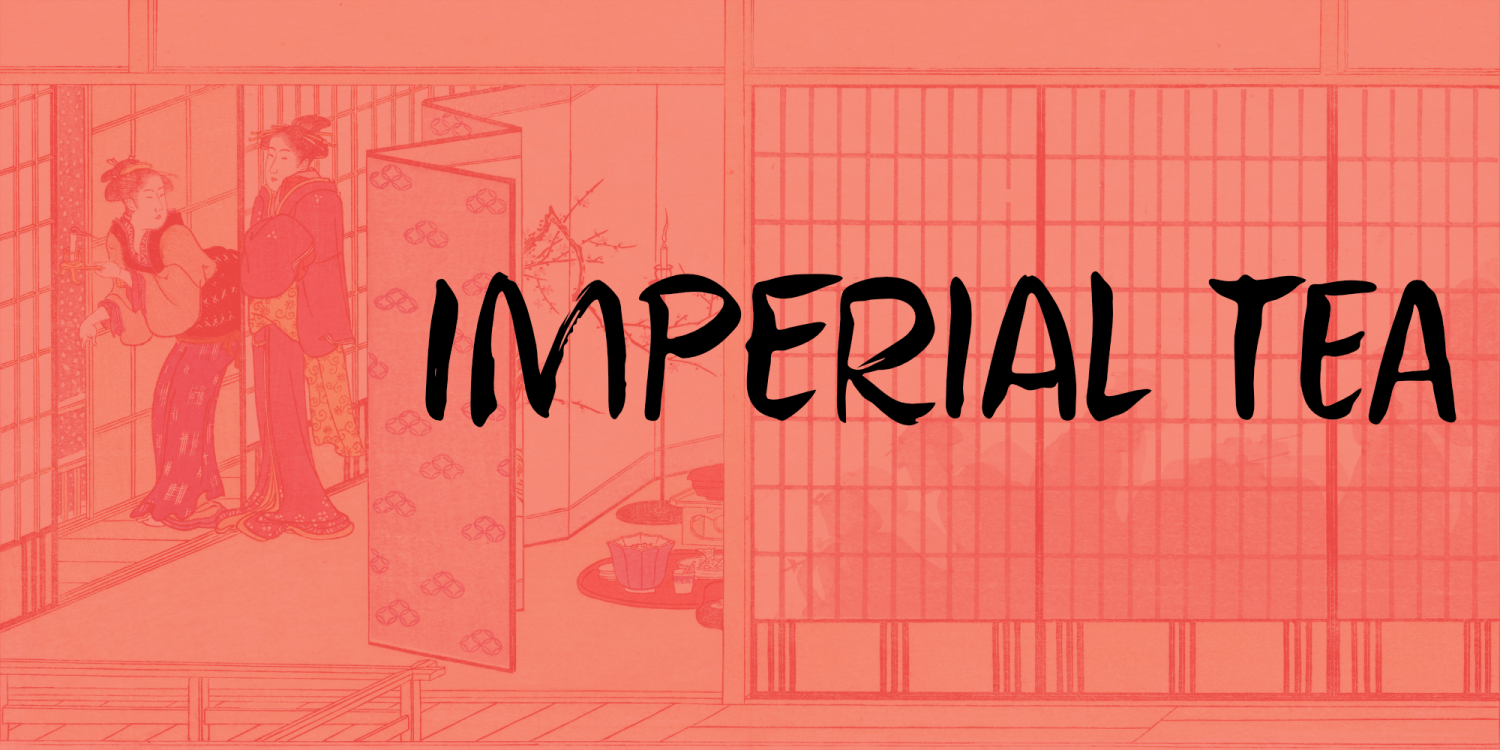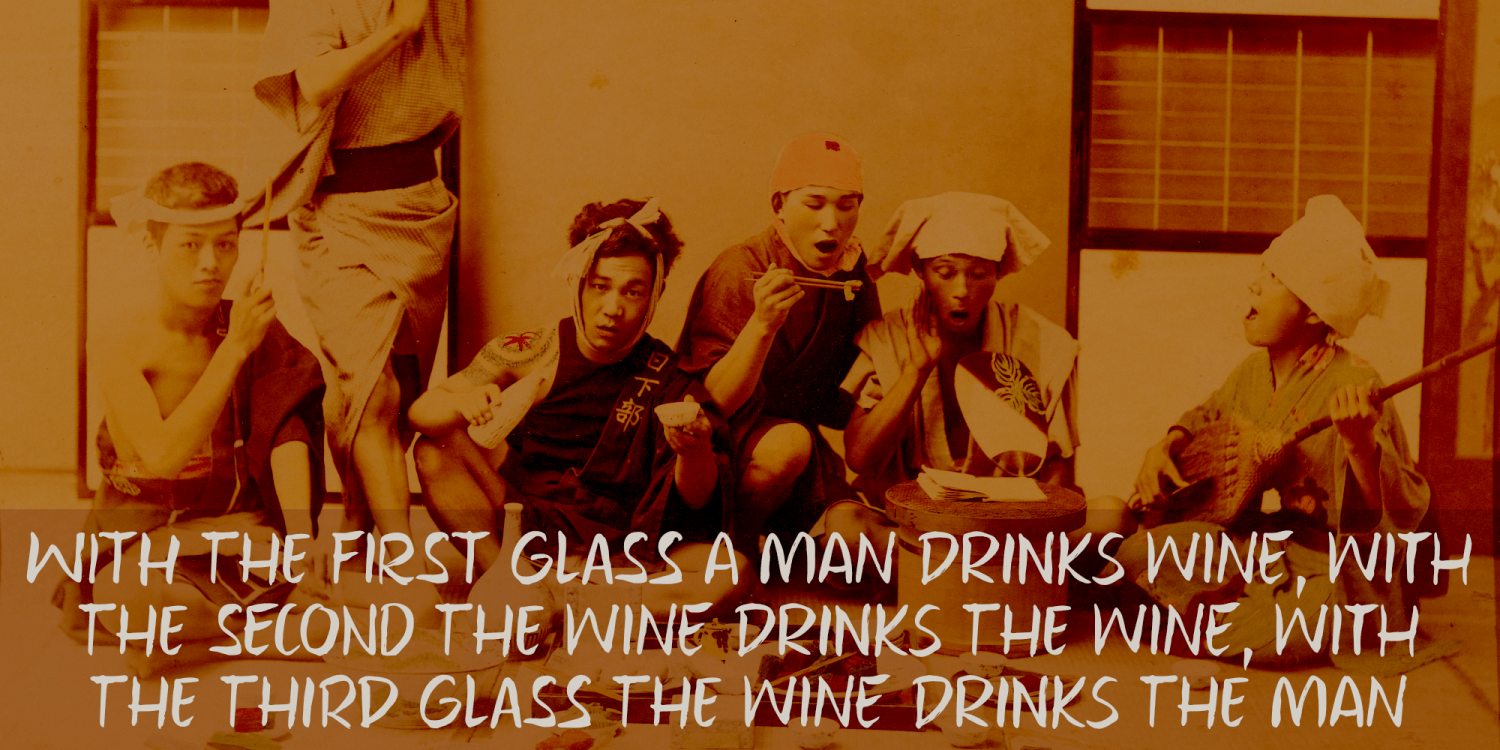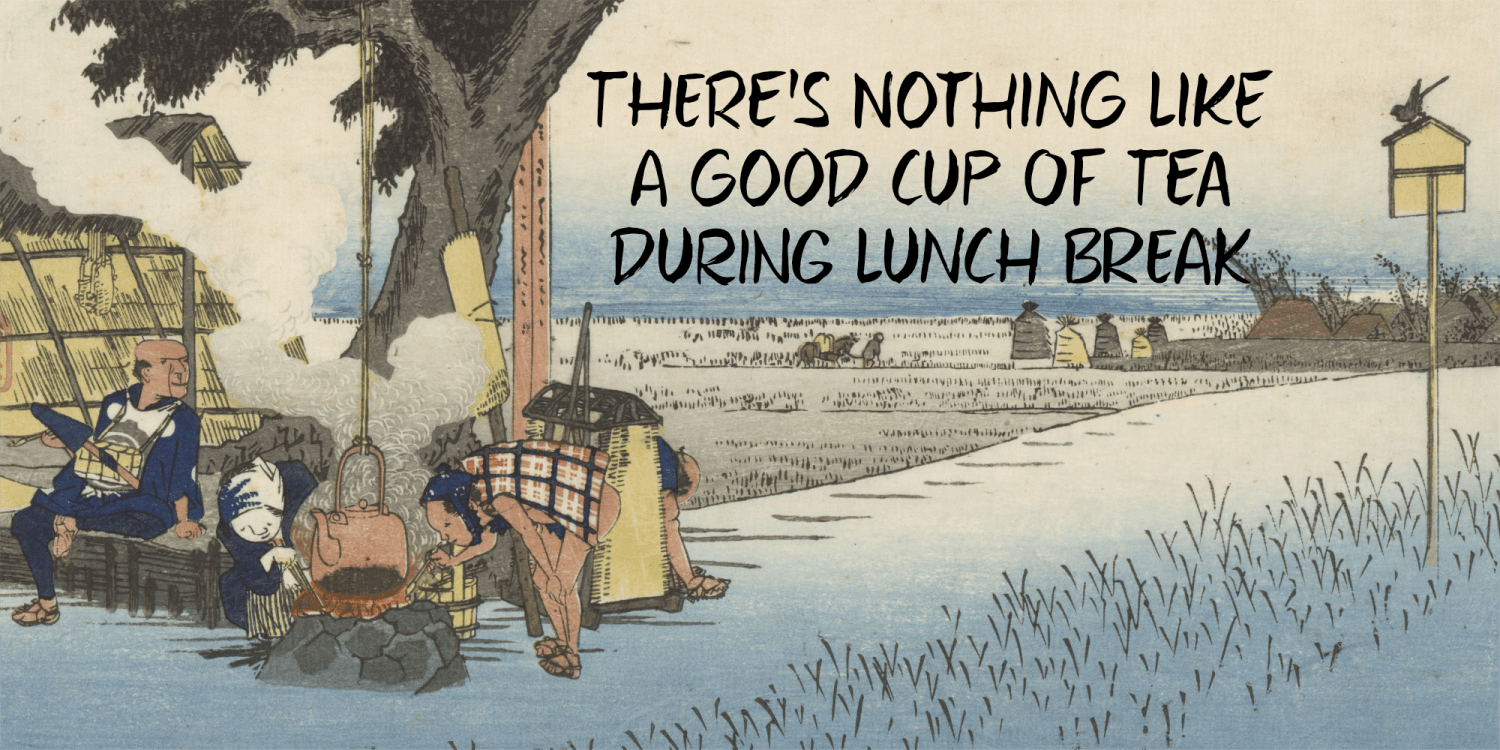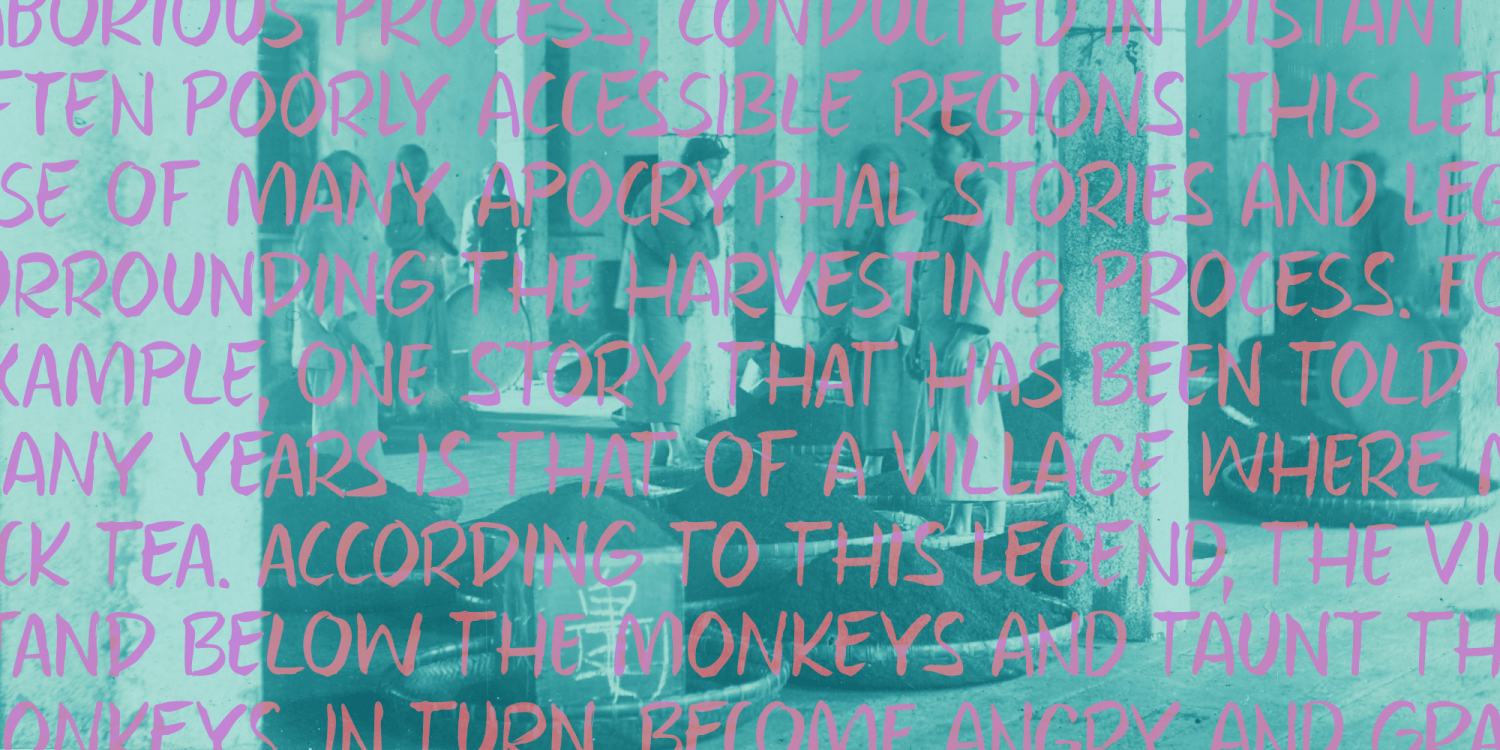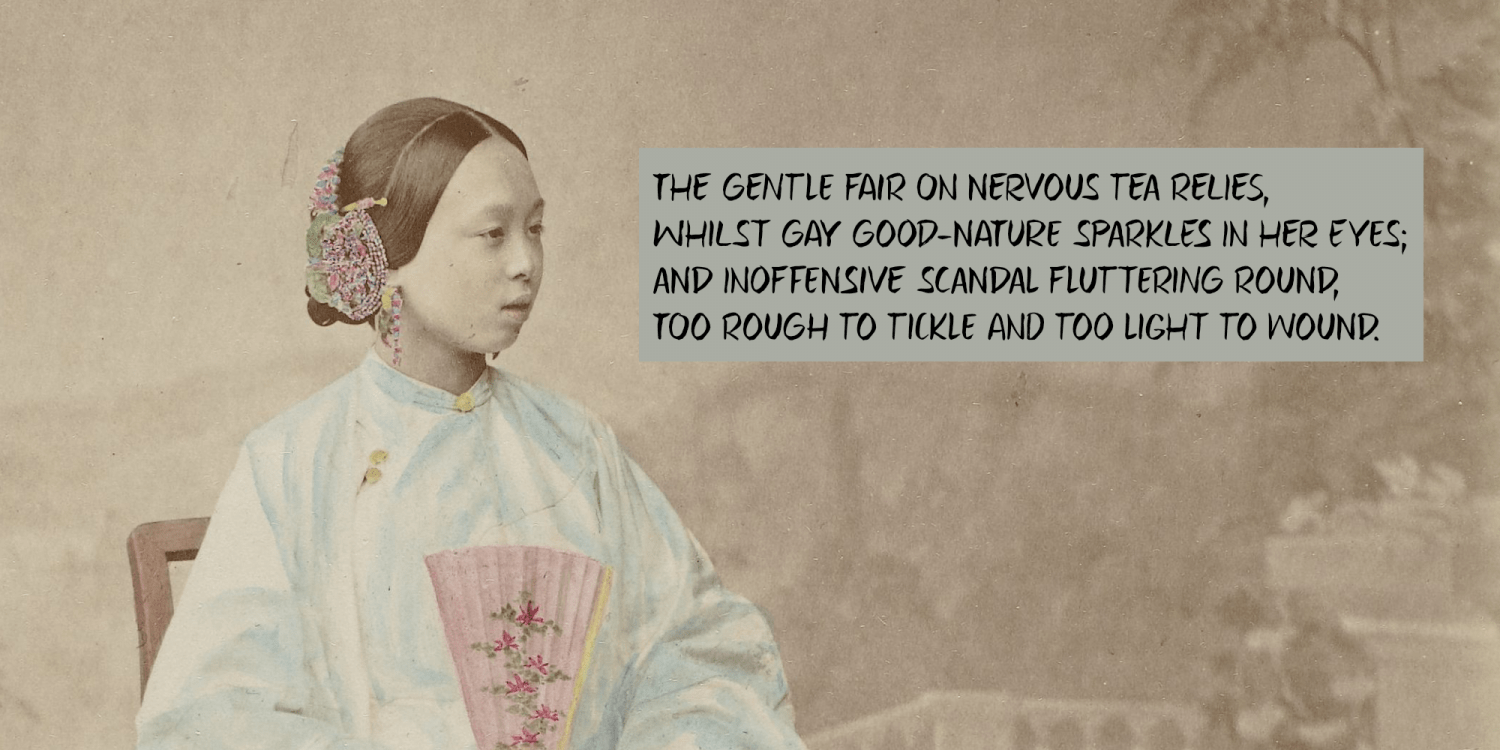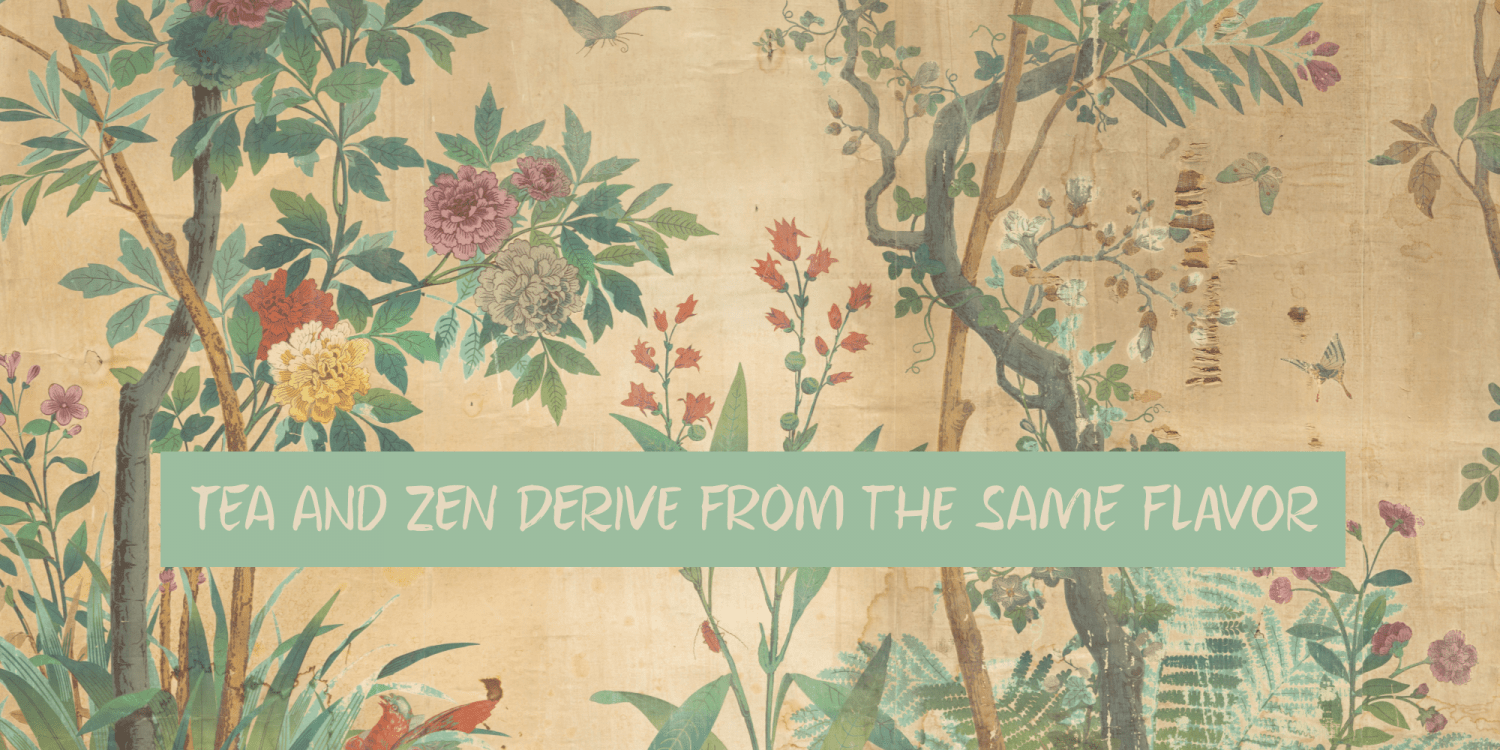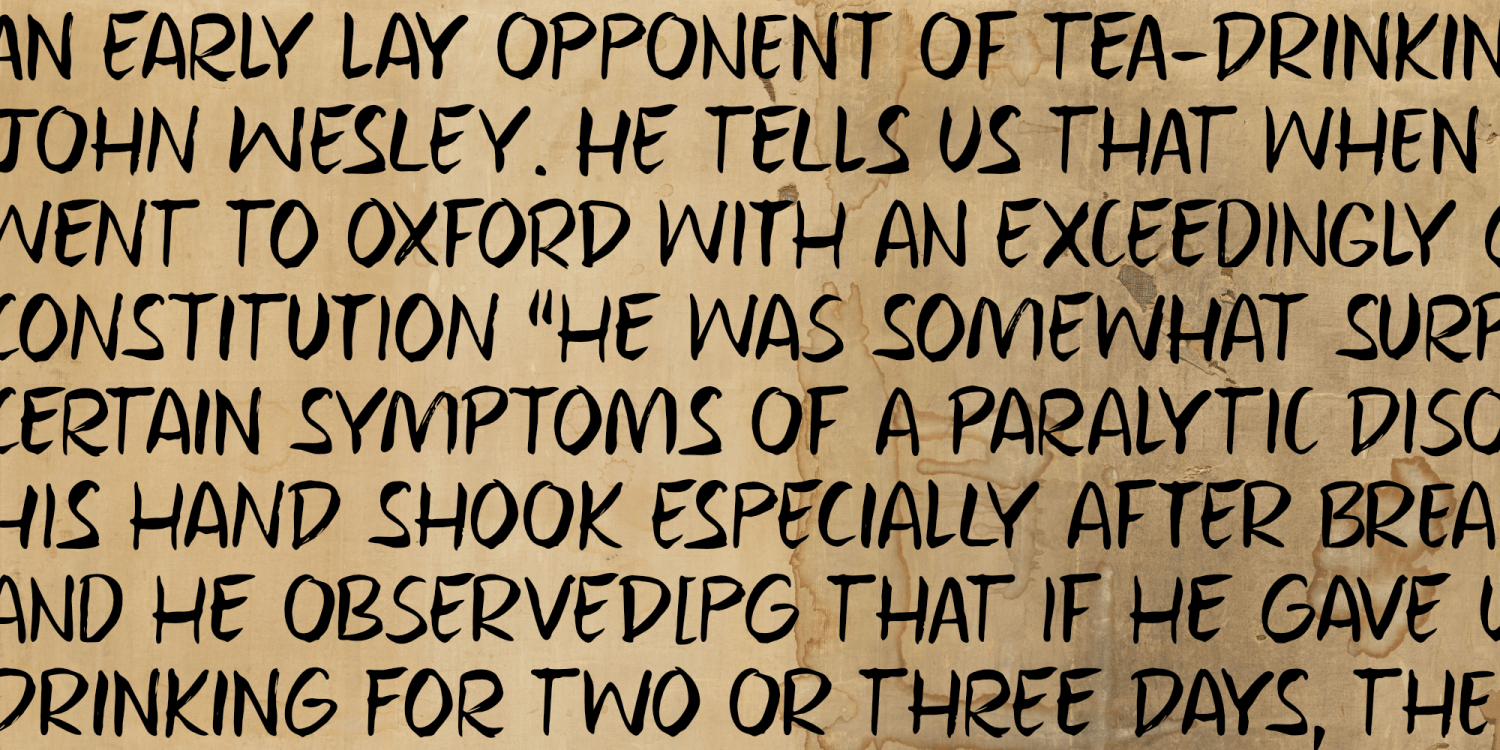
Imperial Tea
I am a coffee person, but two years ago, just before the whole Covid-thing happened, I came down with what I assumed to be the flu. It was a really nasty flu as well: I was down for 10 days or so and when I sort of recovered, nothing tasted the same. Coffee tasted like cardboard and I couldn't stand the taste of it, so I decided to drink tea instead. The 'supermarket tea' we have in Holland is quite bad and tasteless, so I ordered some proper strong English tea online and I have been drinking it ever since.
Of course I was thinking of this when I created Imperial Tea font. Imperial Tea font was made with . . . yes, you've guessed it: Chinese ink and a brush. Imperial Tea is a nice, 'oriental-ish' looking font that comes with a set of alternate glyphs and an impressive language support, including Vietnamese and Greek.